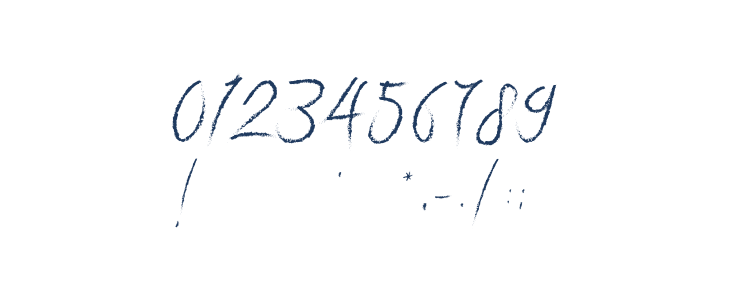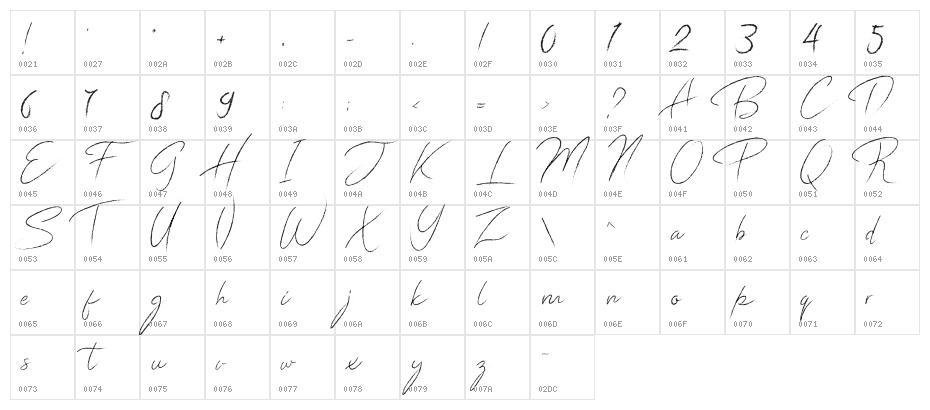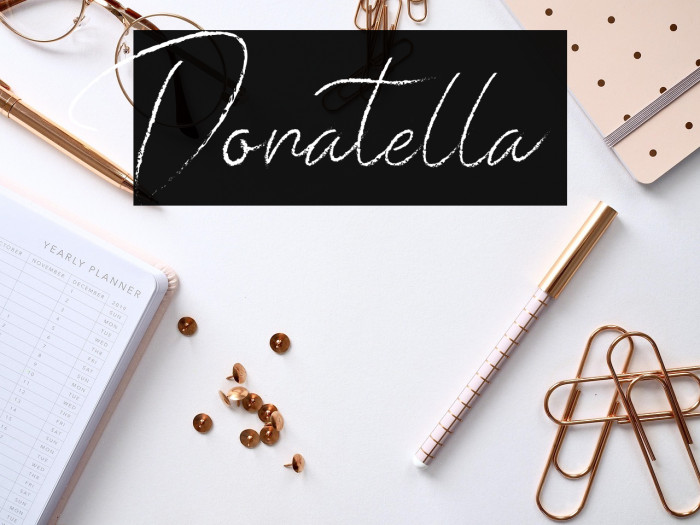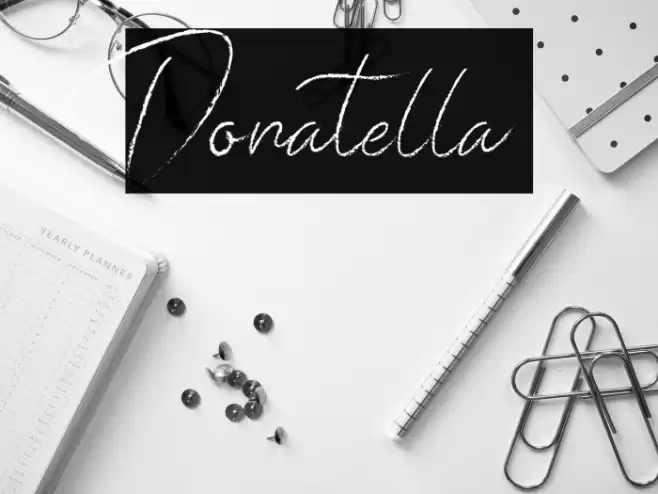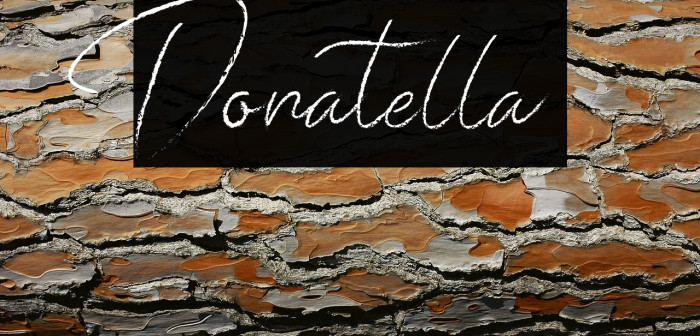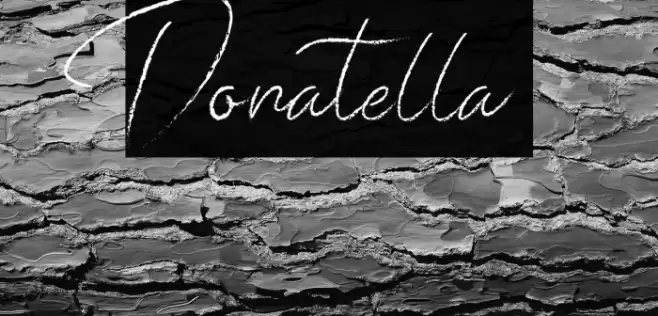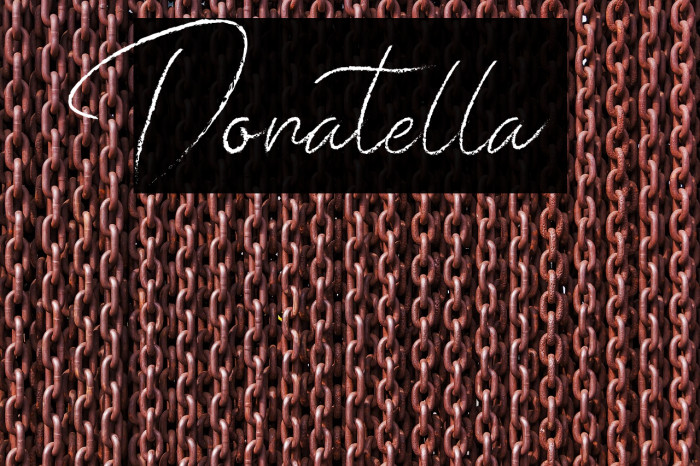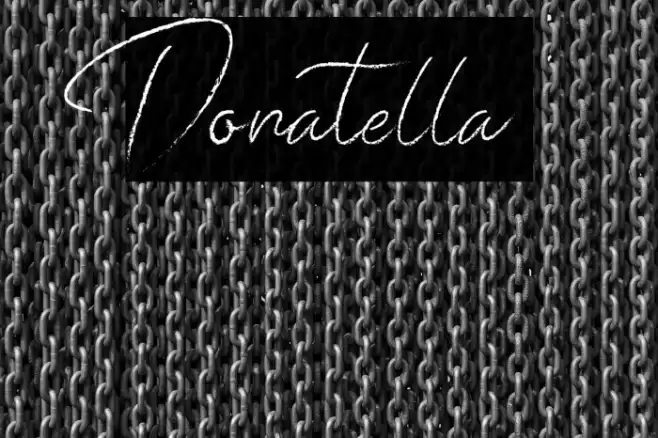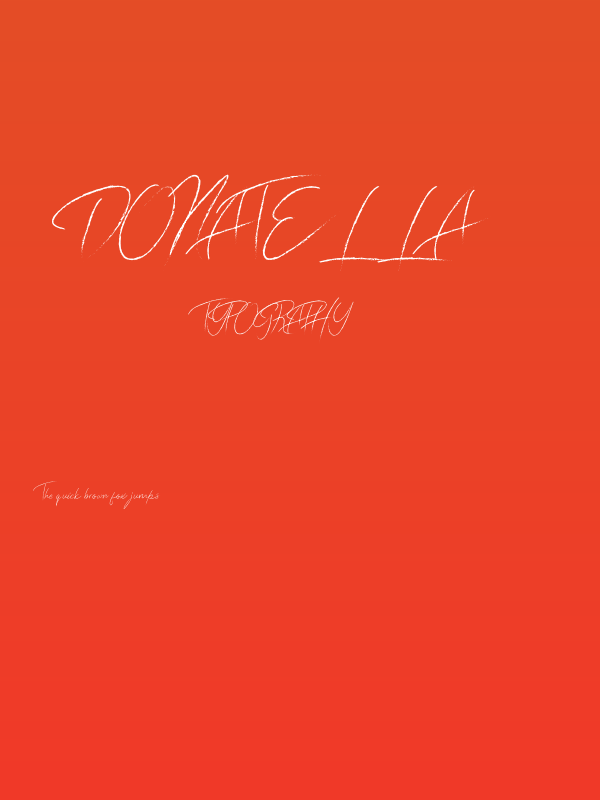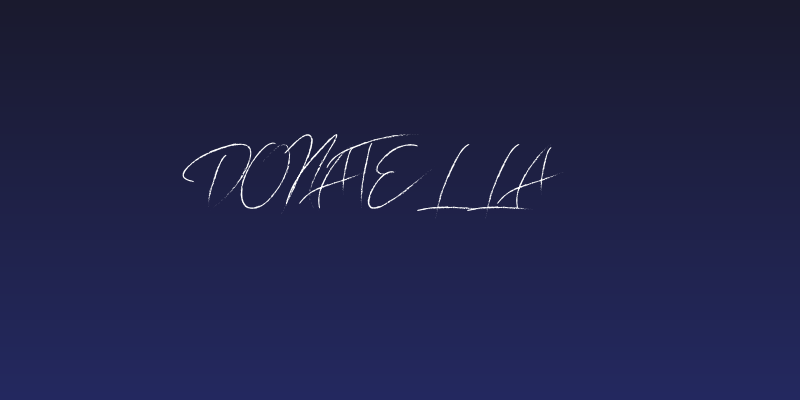
Donatella Font
Donatella Description
This font exudes a sense of elegance and fluidity, characterized by its cursive, handwritten style. The letters are connected with smooth, flowing strokes that mimic the natural movement of handwriting. The uppercase letters are slightly more elaborate, with extended ascenders and descenders, adding a touch of sophistication. The lowercase letters maintain a consistent flow, enhancing readability while preserving the artistic flair. The numerals are distinct yet harmonious with the overall script style, featuring gentle curves and a slight slant. The special characters complement the alphabet with similar fluid strokes, ensuring a cohesive appearance.
| Overall Style | Elegant, Artistic |
| Proposed Projects | Ideal for wedding invitations, personal branding, greeting cards, and elegant packaging designs. |